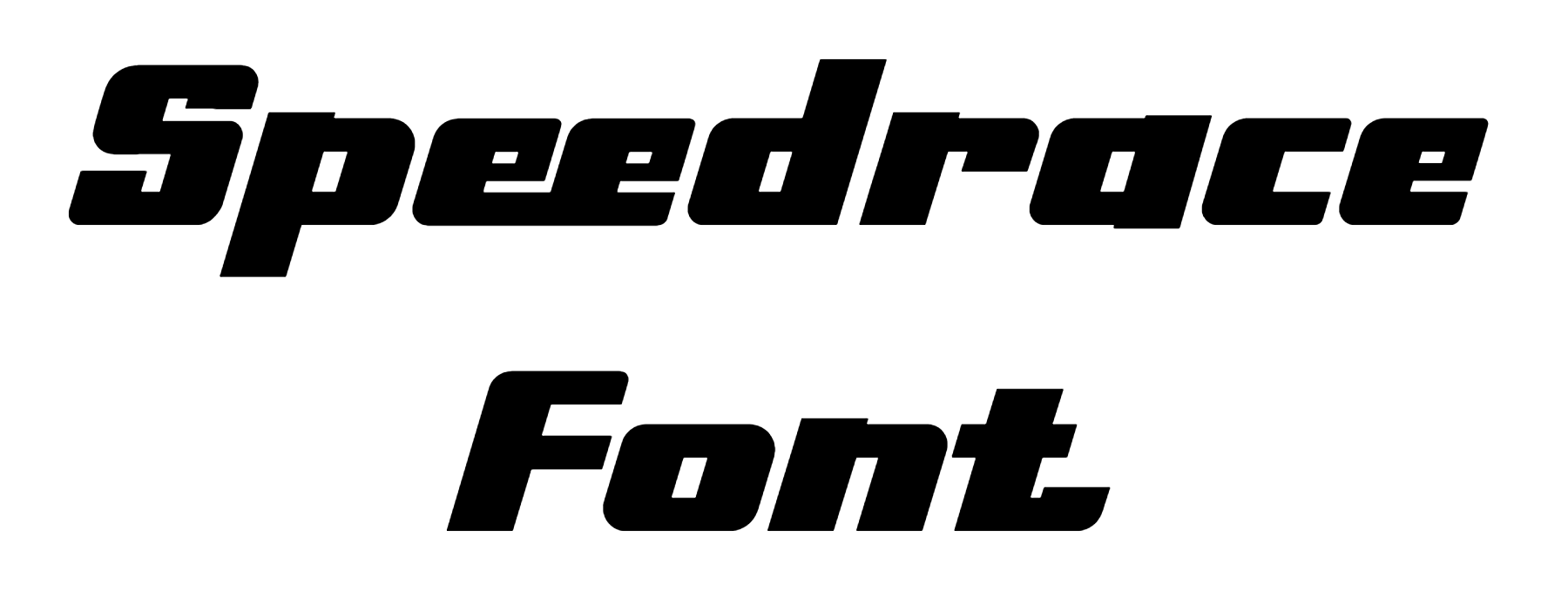
#Speed race
Speedrace Font Preview
Speedrace
Speedrace is a sans serif font created by Kong Font (2022). It has a clean, no-nonsense look that fits modern brands and websites. You can download it for free and test it with your own words in the preview above.
- Designer: Kong Font
- Glyphs: 391
- Extra characters: 36 copy-and-paste alternates (Private Use Area)
What You Can Type With Speedrace
You get every letter from A to Z in both cases and all the numbers from 0 to 9, which means Speedrace can handle full sentences, dates and prices. Everyday marks like &, !, ? and @ are there too. Thanks to its accented letters, it also works for Spanish, French, German, Portuguese and Italian, not just English.
How to Use the Alternate Letters in Speedrace
Where Speedrace Works Best
Designers usually reach for fonts like Speedrace when they're making websites, app screens and clean logos. It works for headings and body text alike. If the download has several weights, use a heavier one for titles and a lighter one for paragraphs.
Who designed Speedrace font?
Does Speedrace support accented letters?
Yes. Speedrace includes the accented letters needed for Spanish, French, German, Portuguese and Italian, so it works for more than just English.